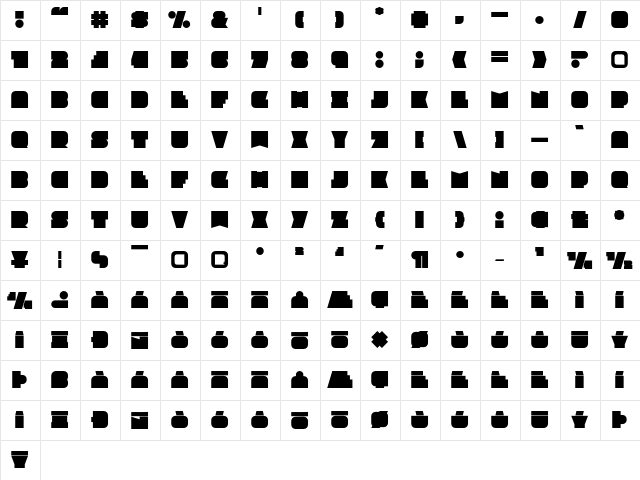
Grafinc ExtraBlack
| Foundry | Andrej Waldegg. Grafik Inc. / FaceType |
| Designer | Andrej Waldegg |
Design Context for Grafinc Typeface
Grafinc is a composed and adaptable typeface that performs quietly and consistently across a wide range of design contexts.